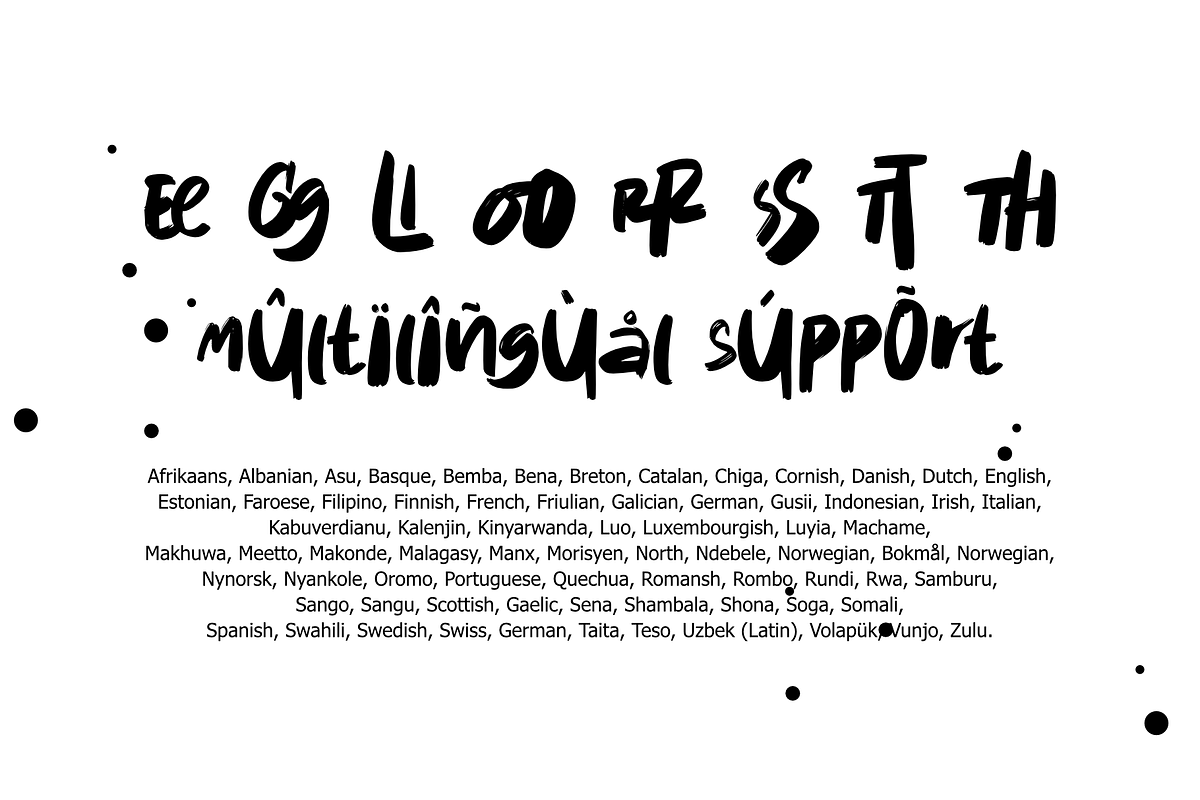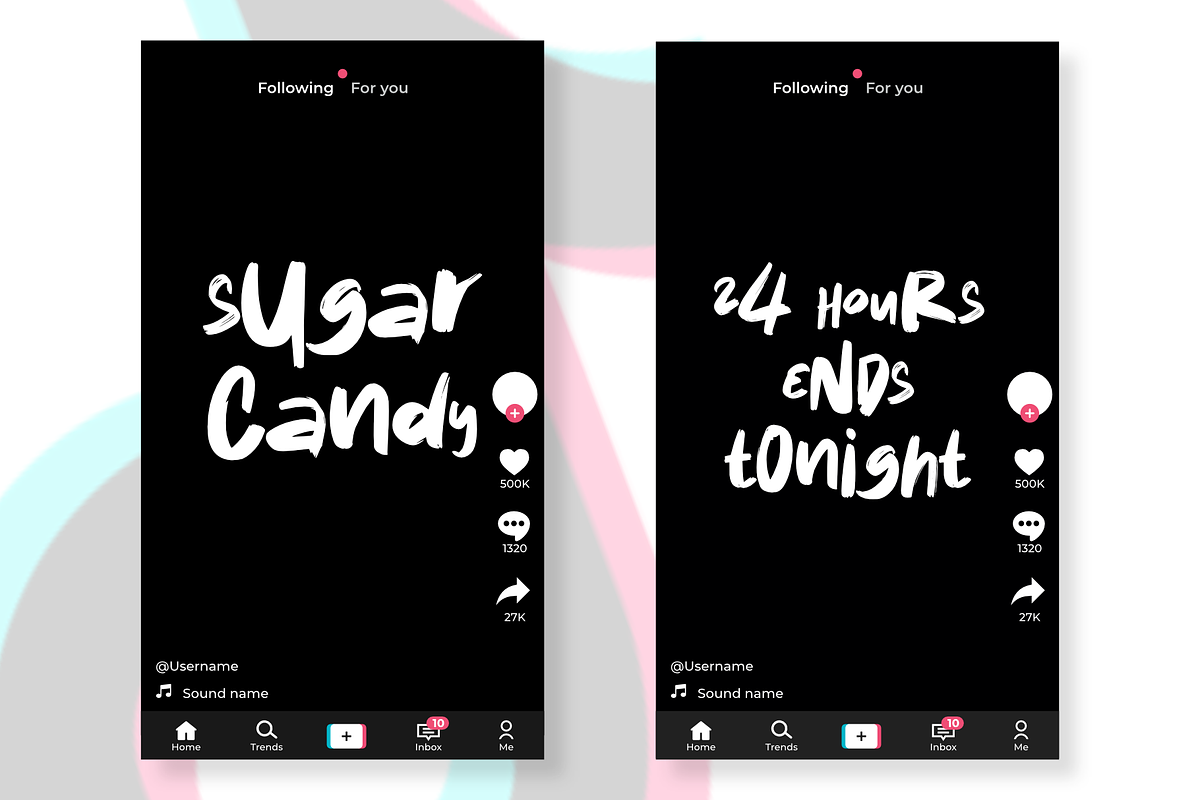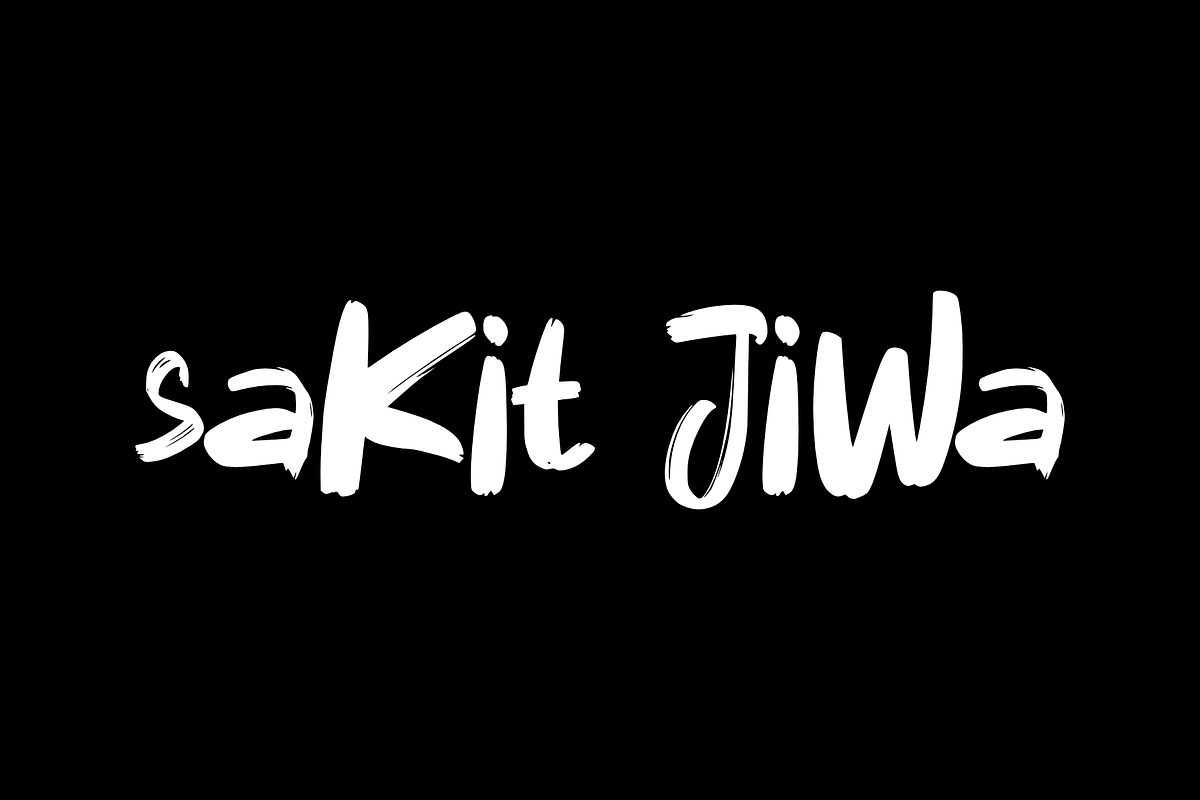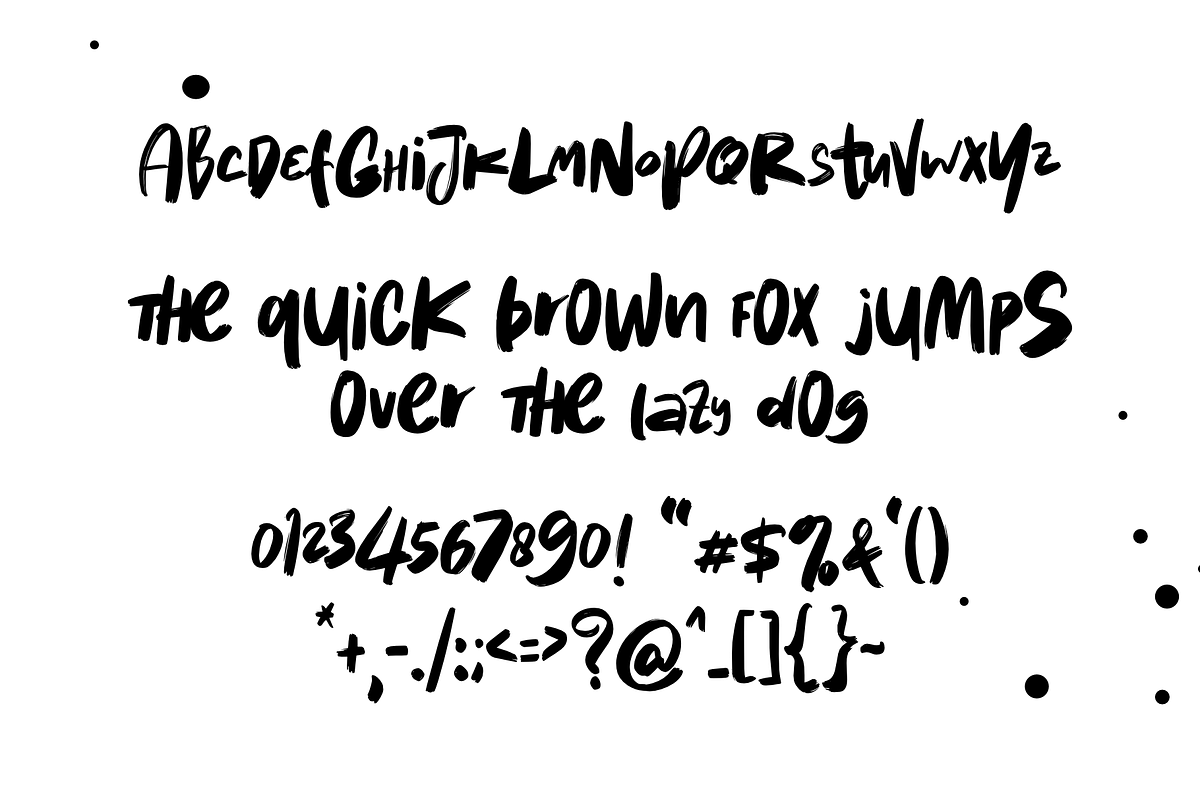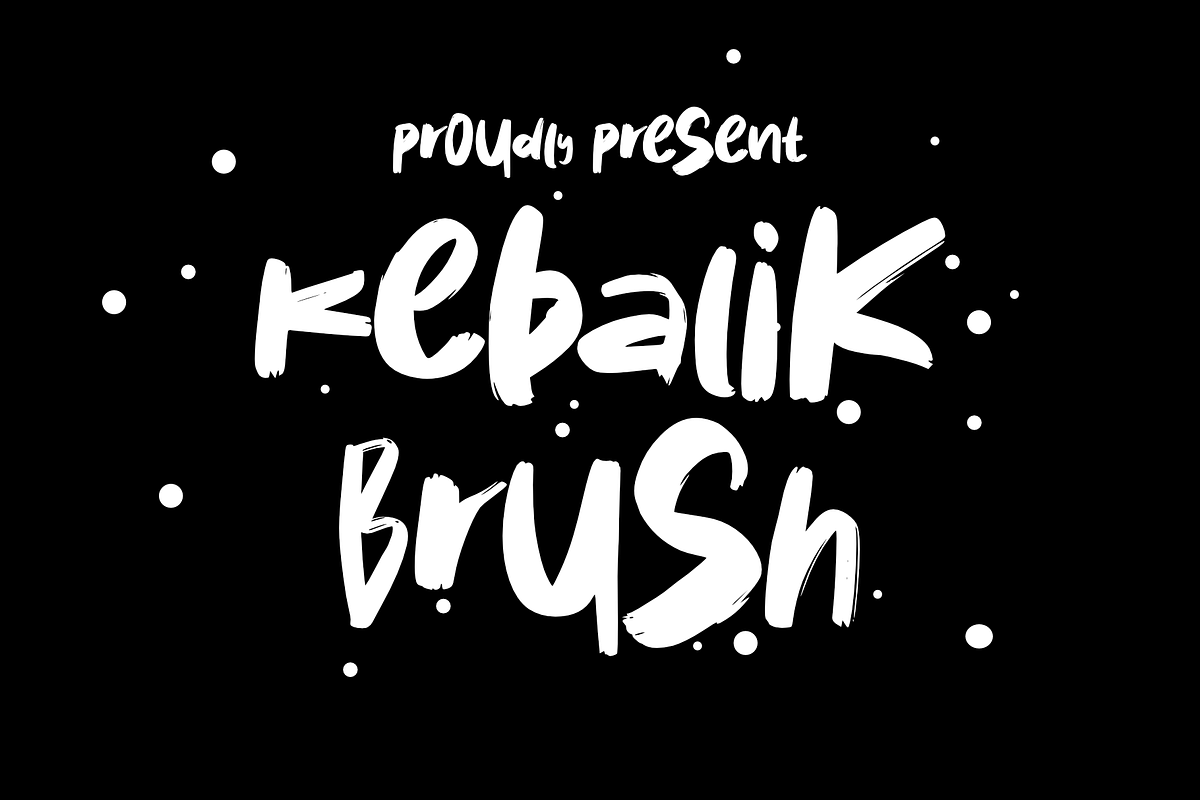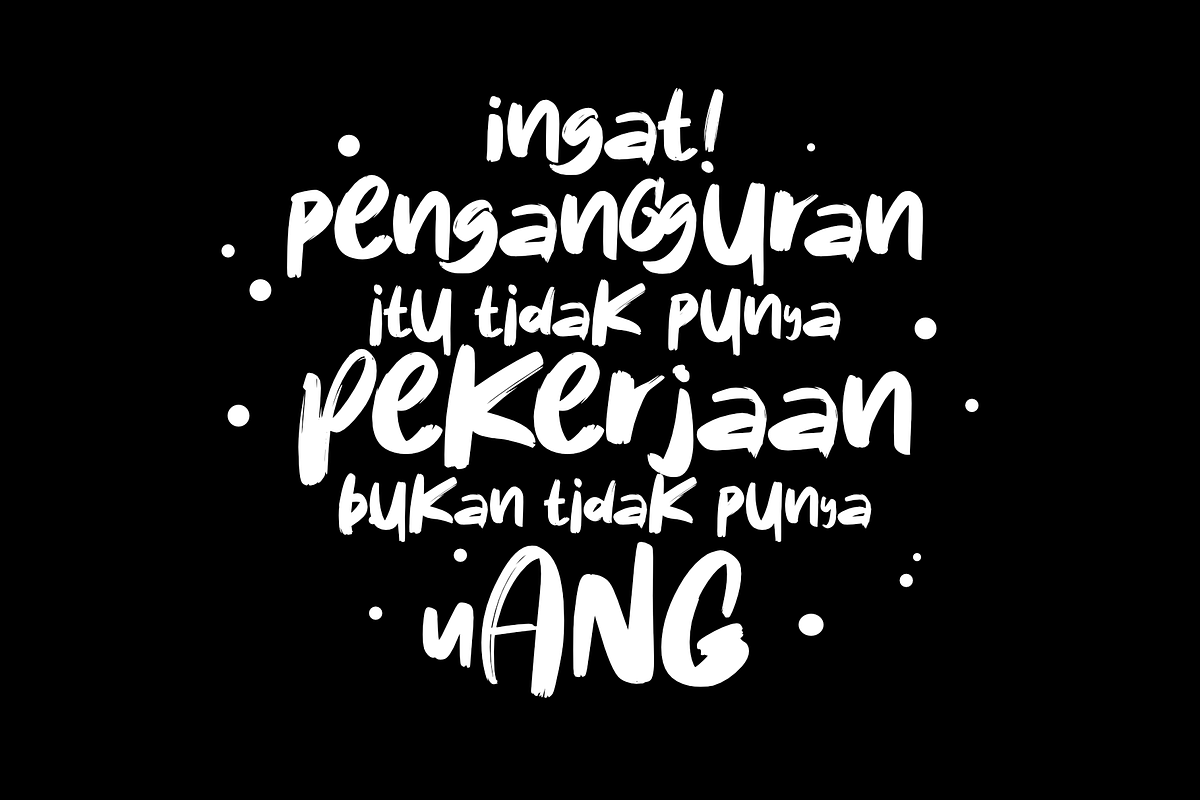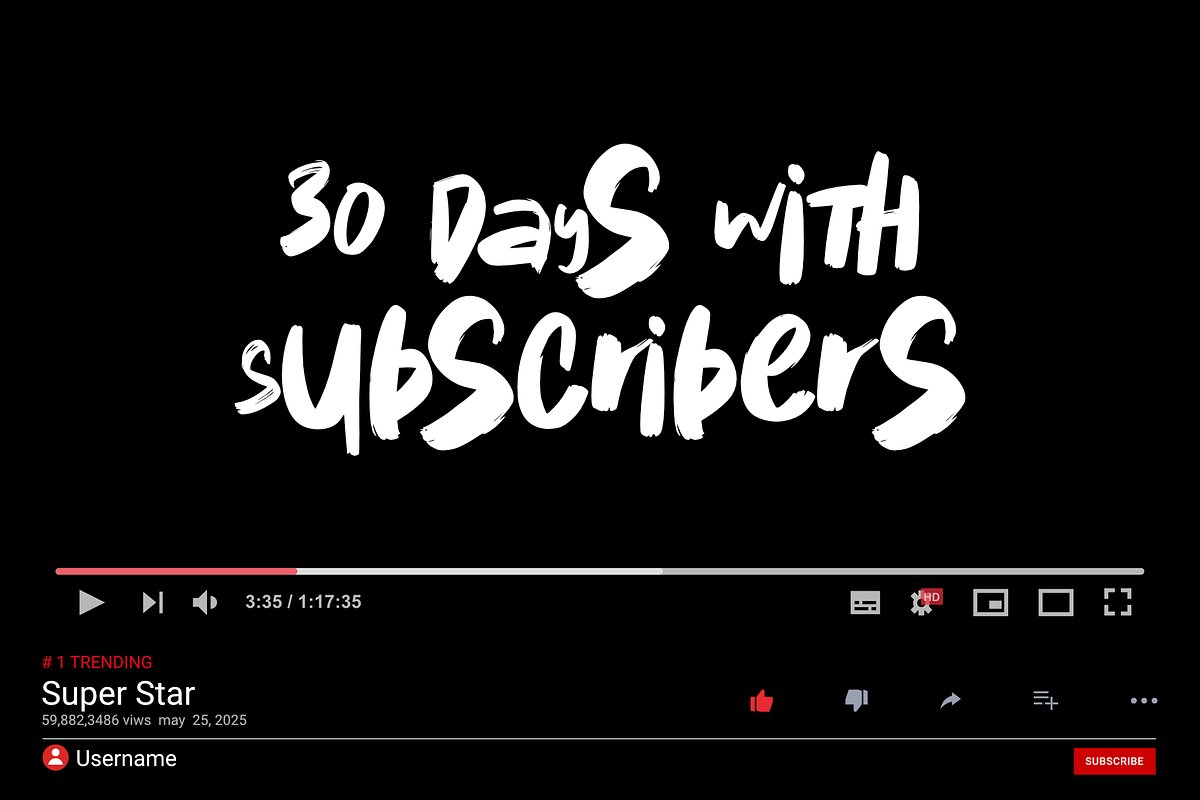
Kebalik Brush
Introducing Kebalik Brush, a brush type font that is randomly generated but if you combine them into letters it looks Amazing.
there is nothing special about this font except for those who work on designs that are drafted carelessly.
- Multilingual Accent